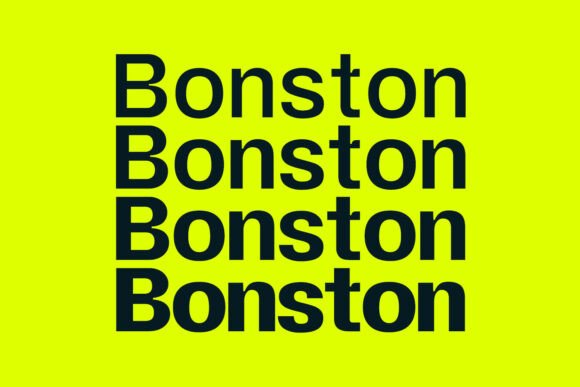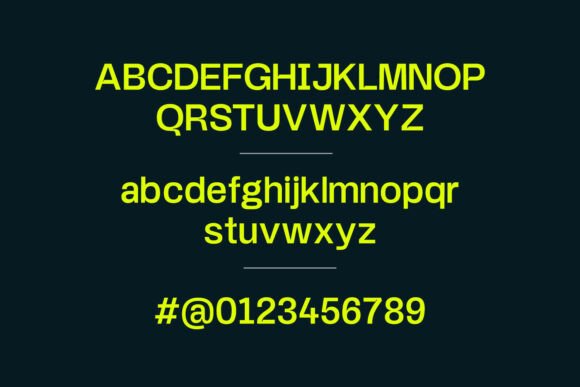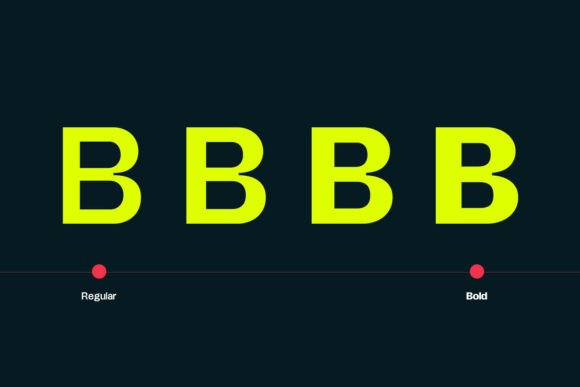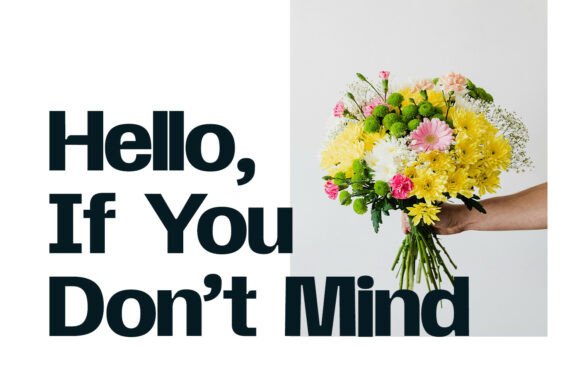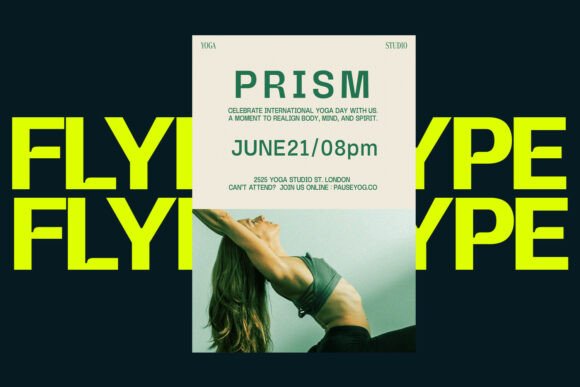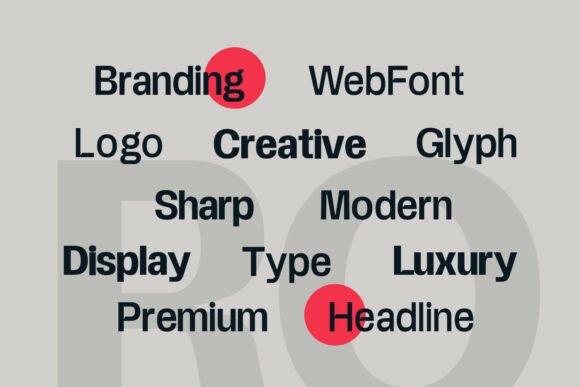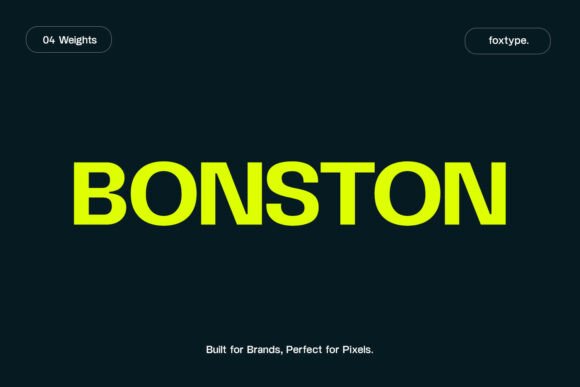
Unleashing the Power of Bonston Font: A Designer’s Dream Come True
Have you ever been in the middle of a design project, and suddenly, you’re stuck on finding the perfect font? I recall a particularly frustrating experience while working on a branding project for a trendy new cafe. The client wanted a font that exuded both elegance and boldness, but everything I tried seemed to fall flat. That’s when I discovered Bonston Display Typeface – a game-changer in the world of typography.
The Birth of Bonston: A Story of Design Inspiration
Bonston’s creator was inspired by the urban landscape and the need for a font that could convey both sophistication and strength. With a passion for modern design and a keen eye for detail, they set out to craft a typeface that would leave a lasting impression. The result is Bonston, a font family that boasts four fundamental weights – Regular, Medium, SemiBold, and Bold – each designed to bring a unique level of flair to your projects.
- ✅ Versatility: Bonston Display Typeface is incredibly versatile, making it perfect for a range of applications, from web design and branding to posters, magazine covers, and more.
- ✅ Clean Contours: The font’s clean lines and curves give it a fresh, modern look that’s sure to turn heads.
- ✅ Commanding Presence: Bonston’s bold weights are perfect for making a statement, while its lighter weights offer a more subtle approach.
- ✅ Optimal Readability: The font is designed to be easy to read, even at smaller sizes, making it perfect for body text and captions.
- ⚠️ Limited Ligatures: Bonston Display Typeface has limited ligatures, which may be a drawback for some designers.
- ⚠️ Not Suitable for Body Text: While the font is readable, it’s not ideal for long blocks of body text – it’s best used for headlines and titles.
A Practical Guide: Using Bonston in Your Design Workflow
| Font Name | Bonston Font |
| Author | Foxtype |
| What is Bonston Display Typeface? | Bonston Display Typeface is a contemporary font family designed for making a bold statement. It’s perfect for a range of applications, from web design and branding to posters and magazine covers. |
| What weights are available in the Bonston font family? | The Bonston font family includes four fundamental weights: Regular, Medium, SemiBold, and Bold. |
| Can I use Bonston for body text? | While Bonston is readable, it’s not ideal for long blocks of body text. It’s best used for headlines and titles. |
| Is Bonston suitable for digital interfaces? | Yes, Bonston Display Typeface is perfect for digital interfaces, including website user interface design and mobile apps. |